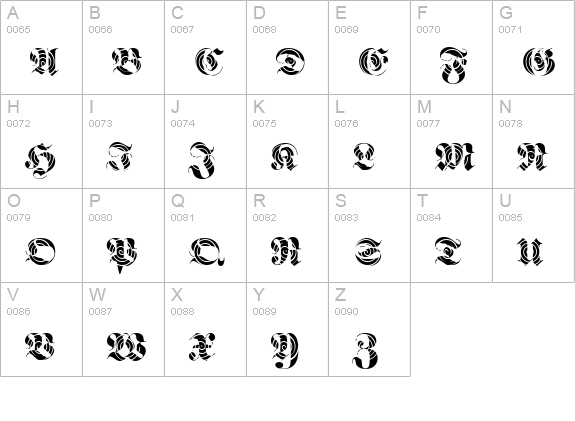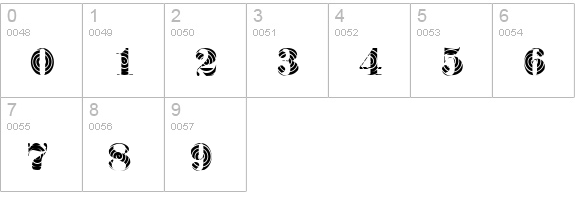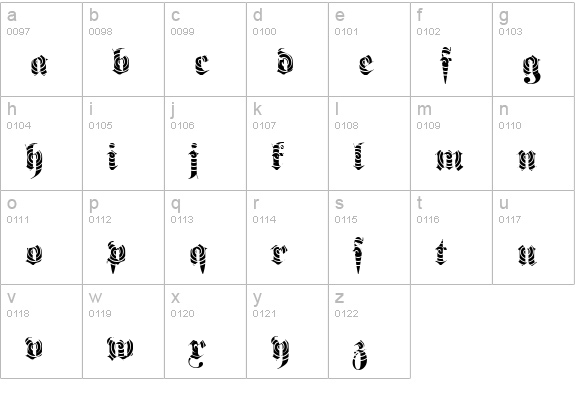
FrakturWinding-Regular Font Details
FrakturWinding-Regular is the standard, neutral variant in the FrakturWinding typeface family \xE2\x80\x94 well suited to general body text, paragraphs, and standard typographic work.
FrakturWinding-Regular is a striking and unique font that combines elements of Fraktur and Winding styles, resulting in a visually captivating typeface. Its intricate design features sharp angles and swirling curves that give it a sense of elegance and sophistication. Perfect for adding a touch of drama and flair to your projects, this font is ideal for titles, headings, and other prominent text. What sets FrakturWinding-Regular apart is not only its visually appealing aesthetics but also its versatility. Whether you're creating invitations, posters, logos, or any other design project, this font will make a bold statement and leave a lasting impression on your audience. The best part? FrakturWinding-Regular is available for free download at FontsMarket.com. So go ahead and elevate your designs with this stunning font that is sure to make a strong impact.